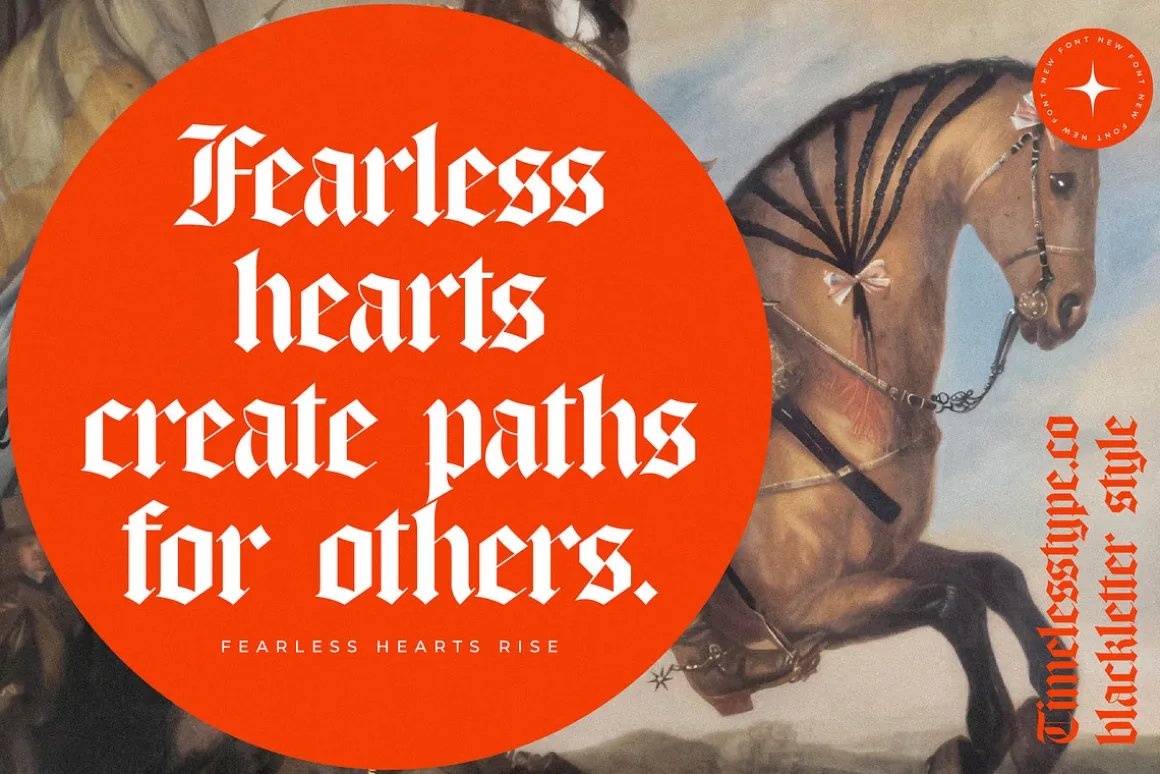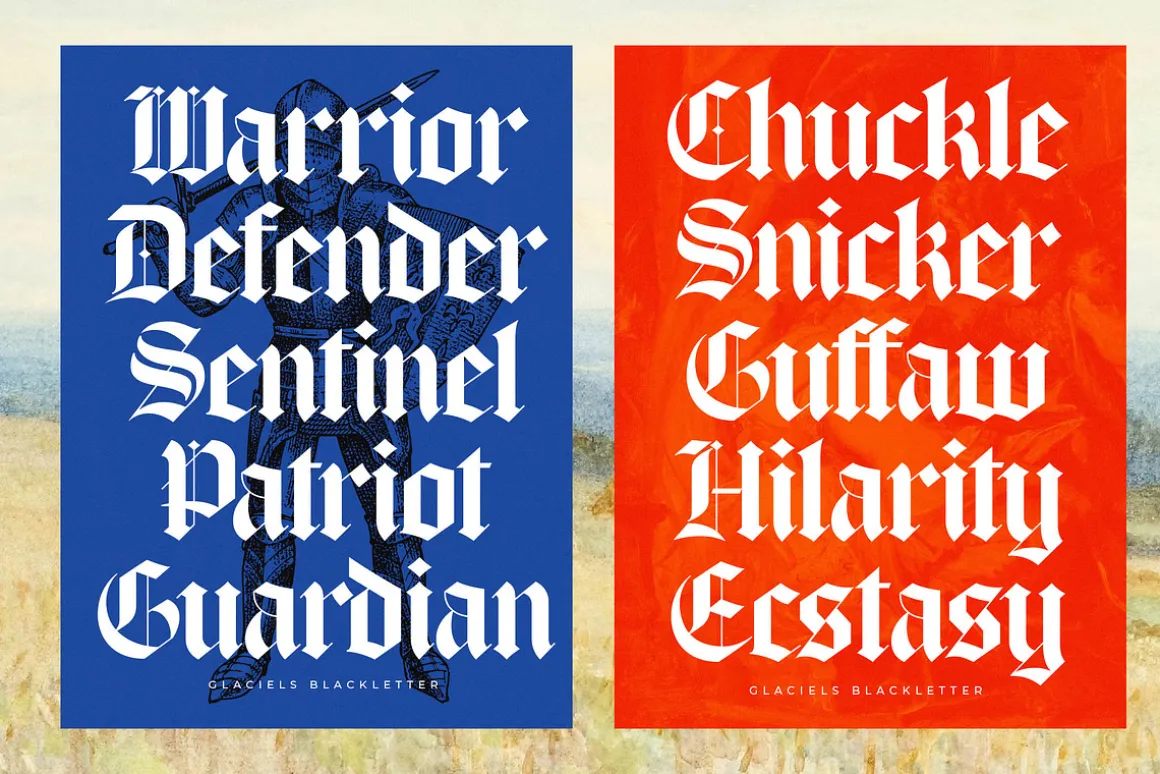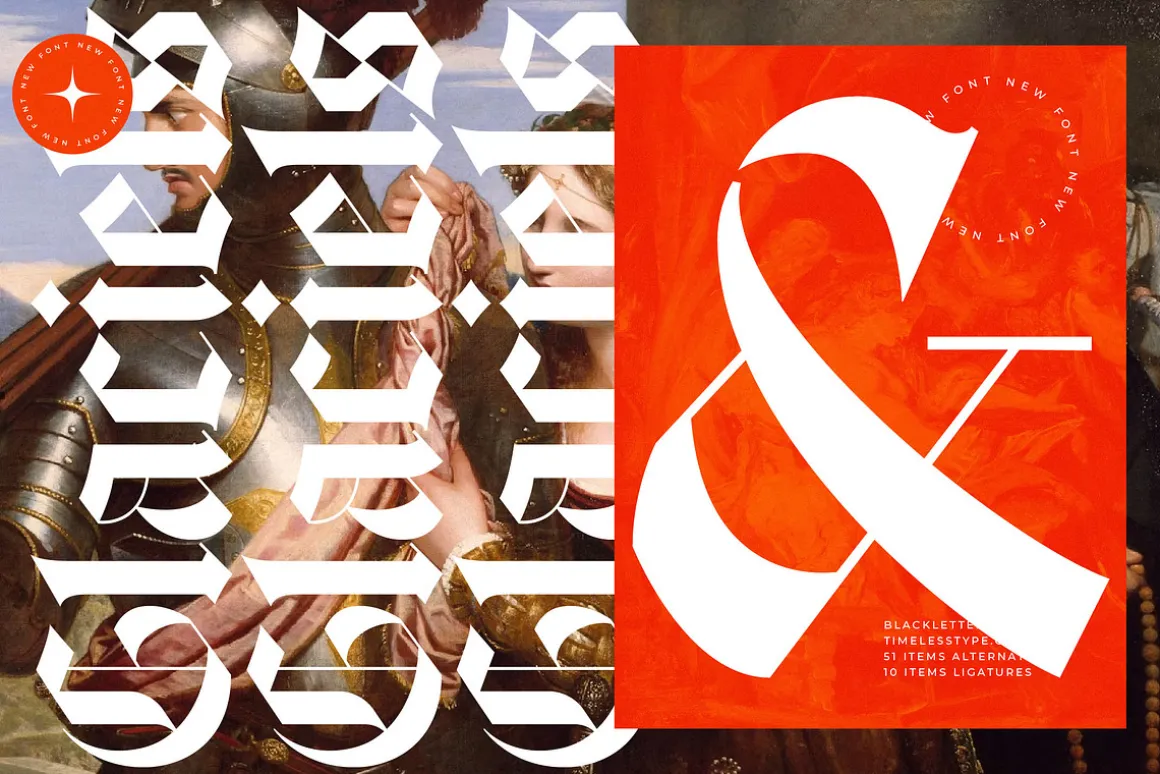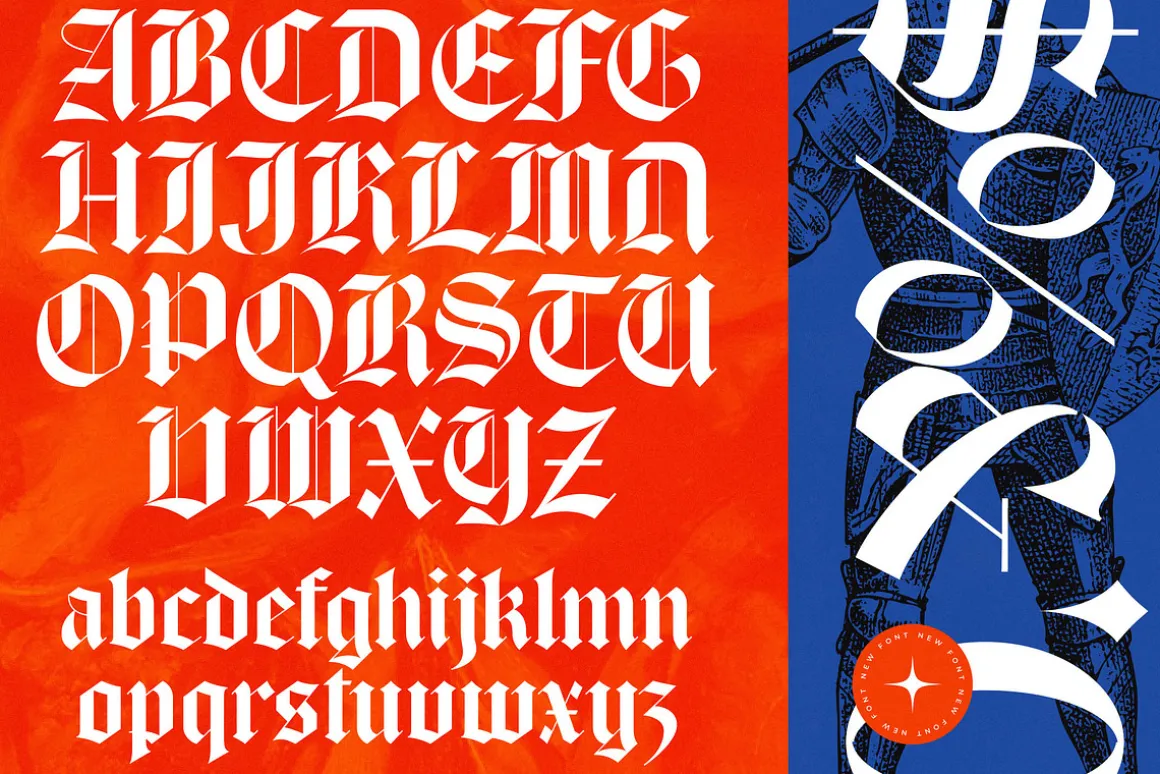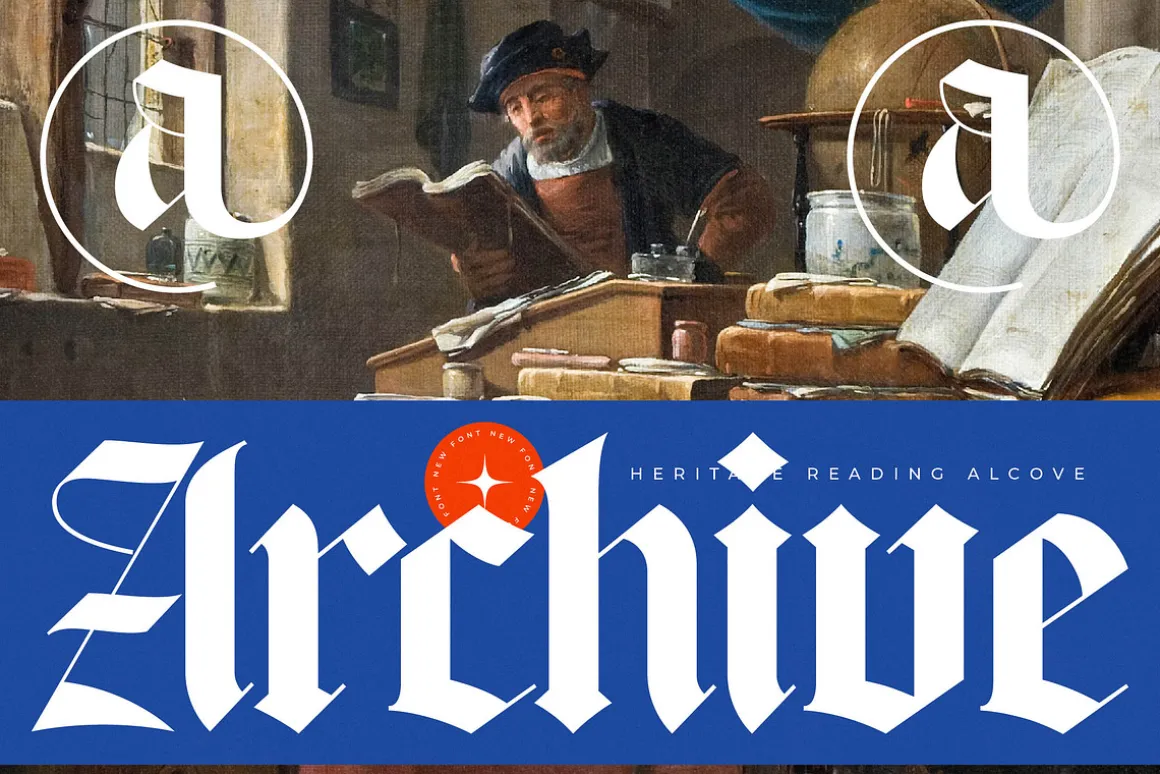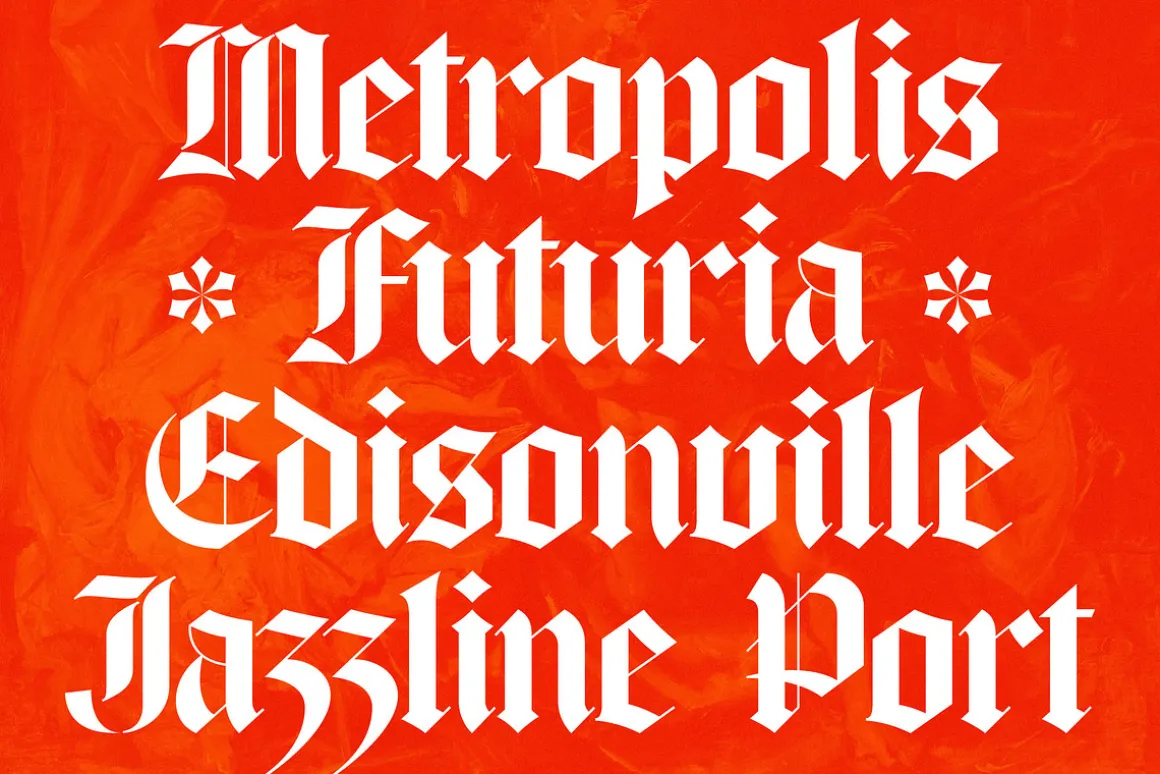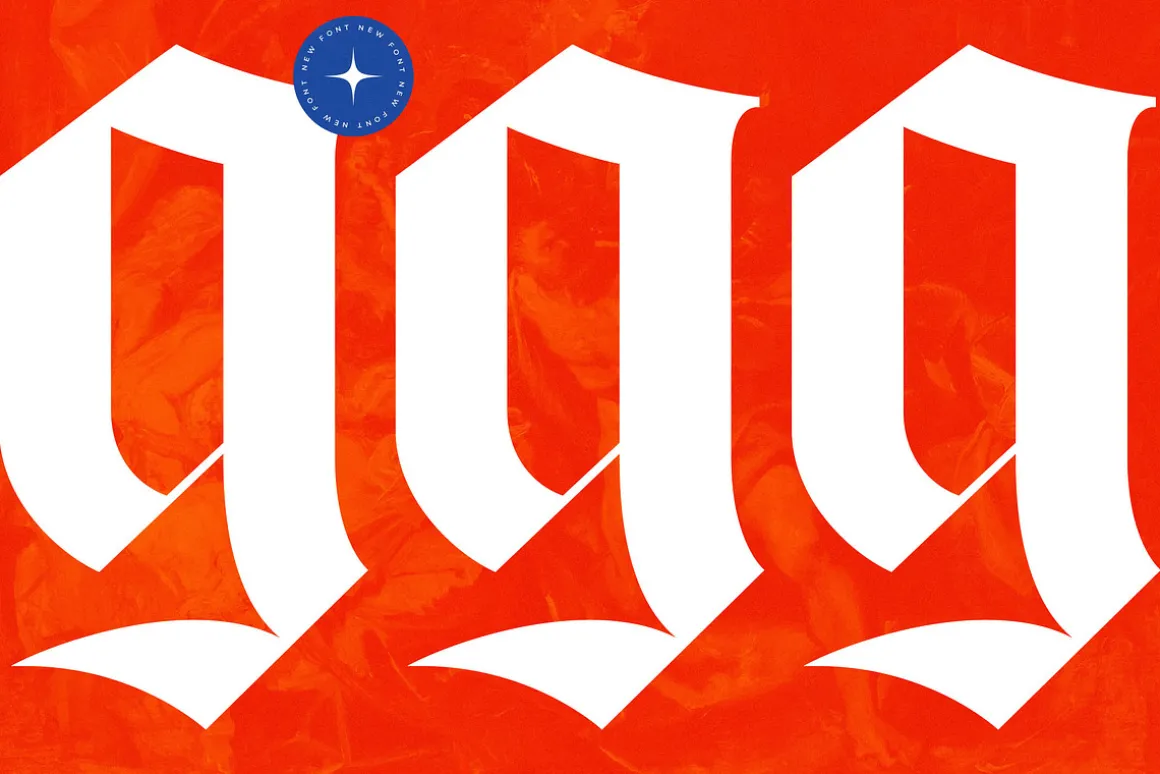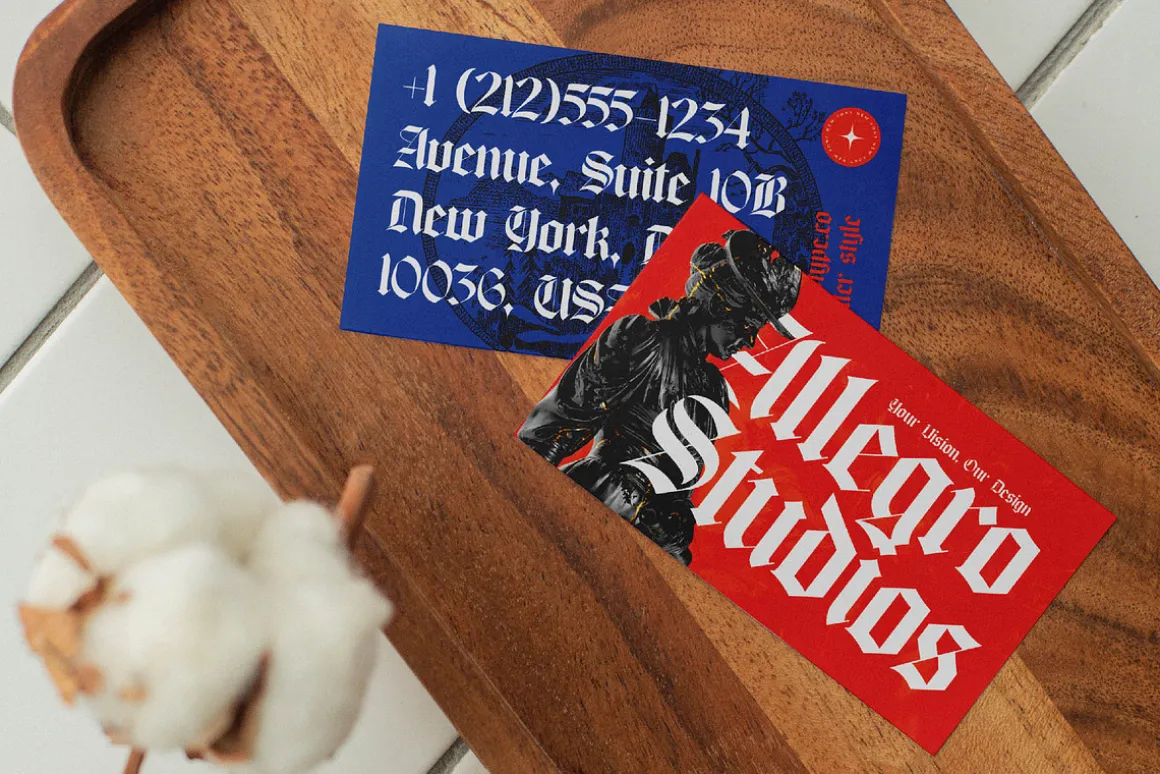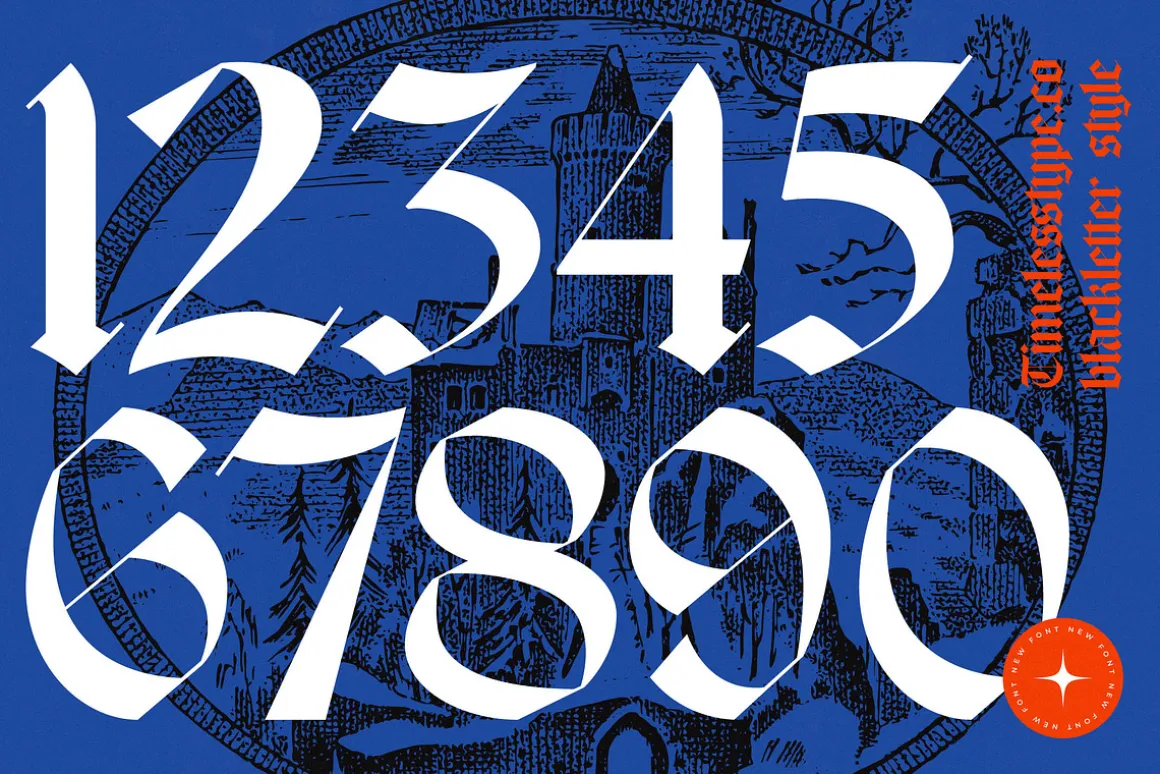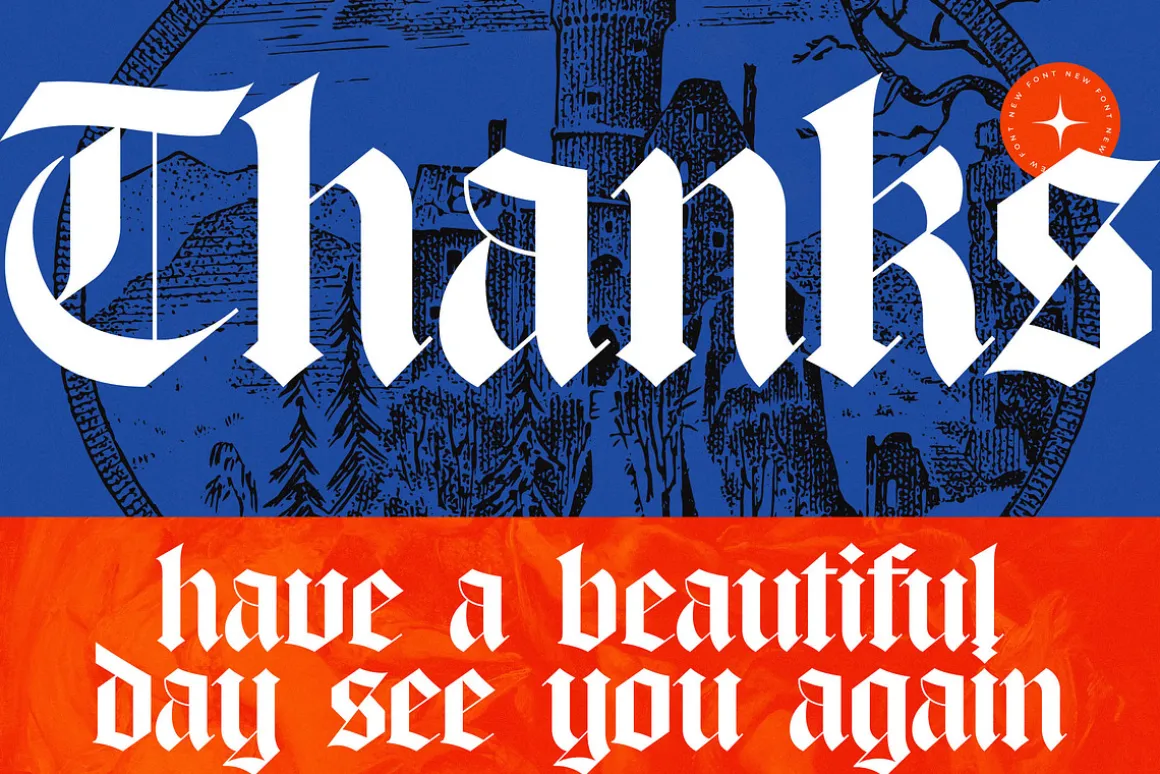
Command attention and rewrite the rules of tradition with Glaciels, a typeface that breathes fire into the classic blackletter aesthetic. It is a visual powerhouse designed to dominate the page with its sharp, unapologetic silhouette and commanding presence.
Drawing inspiration from the rigid structures of medieval manuscripts and the raw energy of urban street culture, this font bridges the gap between ancient history and future-forward design. Its frozen, geometric forms evoke the chilling precision of its namesake, creating an atmosphere that is both cold and captivating.
This modern serif display alternative pushes the boundaries of luxury typography by blending aggressive angles with a high-contrast serif sensibility. Every character is a statement piece, meticulously crafted to ensure a high-end editorial font look that delivers maximum branding impact for designers who refuse to play it safe.
As the modern serif trend evolves toward more expressive and character-heavy styles, Glaciels stands at the forefront of editorial display fonts. It taps into the demand for character-driven typography that speaks to a generation obsessed with blending heritage with subculture.
Perfect for high-stakes logo design and bold branding projects, this typeface excels in editorial layouts that need a sharp edge. Whether you are designing for packaging, wedding stationery with a gothic twist, or cutting-edge fashion labels, it brings an undeniable sense of prestige.
The set is packed with creative potential, featuring a robust selection of ligatures, swashes, and unique alternates to customize your look. With full support for multilingual layouts and a comprehensive range of international characters, it is ready for global creative dominance.